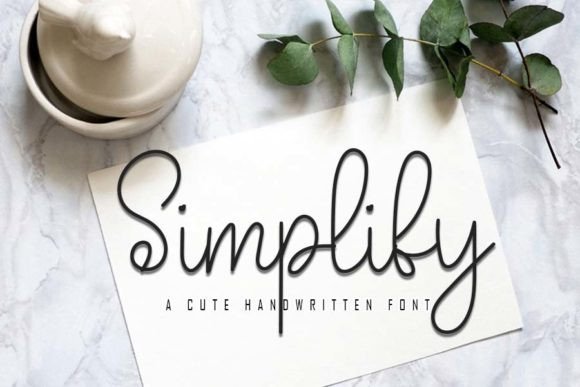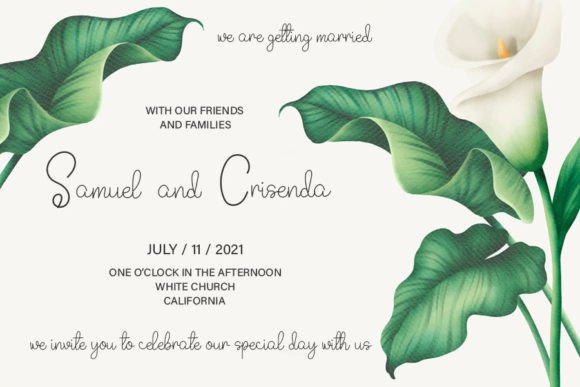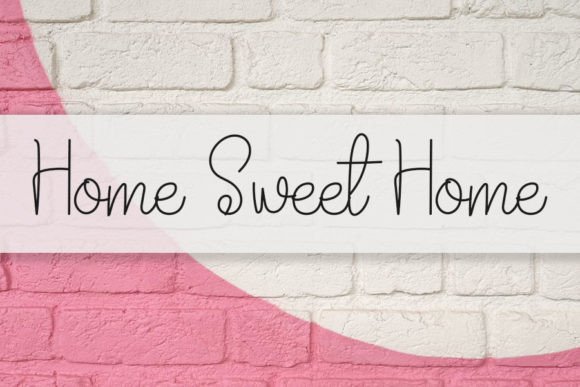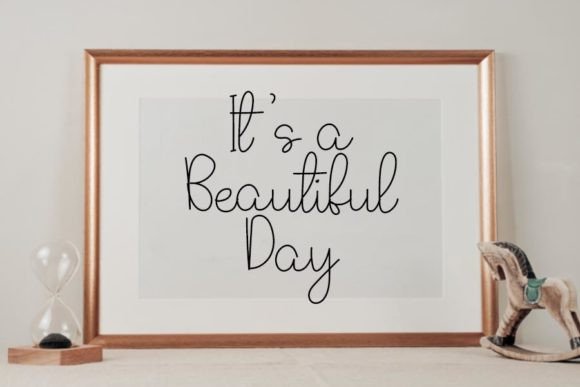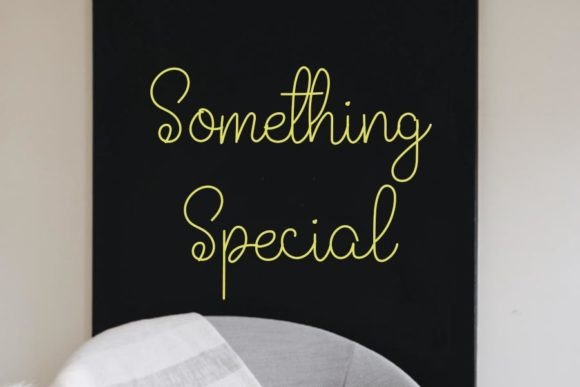
Simplify Font
Simplify Handwritten Font – Elegant and Timeless Typeface
The Simplify Handwritten Font is a delicate and elegant script designed to bring beauty and charm to any project. With its dainty strokes and timeless flow, this font adds a personal handwritten feel while staying clear and professional. Whether you are working on invitations, logos, or quotes, it offers a versatile style that enhances creativity.
A Dainty Handwritten Script
The Simplify Handwritten Font combines smooth lines with graceful movement, giving your text a stylish and natural look. Its distinct handwritten charm makes designs feel personal, while its balanced spacing ensures easy readability. This combination makes it ideal for both casual and professional use.
One of the most common uses of the Simplify Handwritten Font is in invitations and greeting cards. Its elegant curves bring romance to wedding stationery and heartfelt messages. At the same time, it works beautifully in posters, labels, and decorative branding where a handwritten touch adds personality.
Versatility for Creative Projects
The Simplify Handwritten Font adapts well to many design applications. From business logos and product packaging to social media graphics and blog headers, it provides a stylish handwritten look that enhances your message. Its timeless style makes it a great choice for both modern and classic projects.
Why Designers Love Simplify Font
The Simplify HandwrittenFont is loved by designers for its elegance and usability. Its refined strokes make it stand out, while its readability ensures it remains practical. This balance of beauty and clarity makes it a dependable font for creatives.